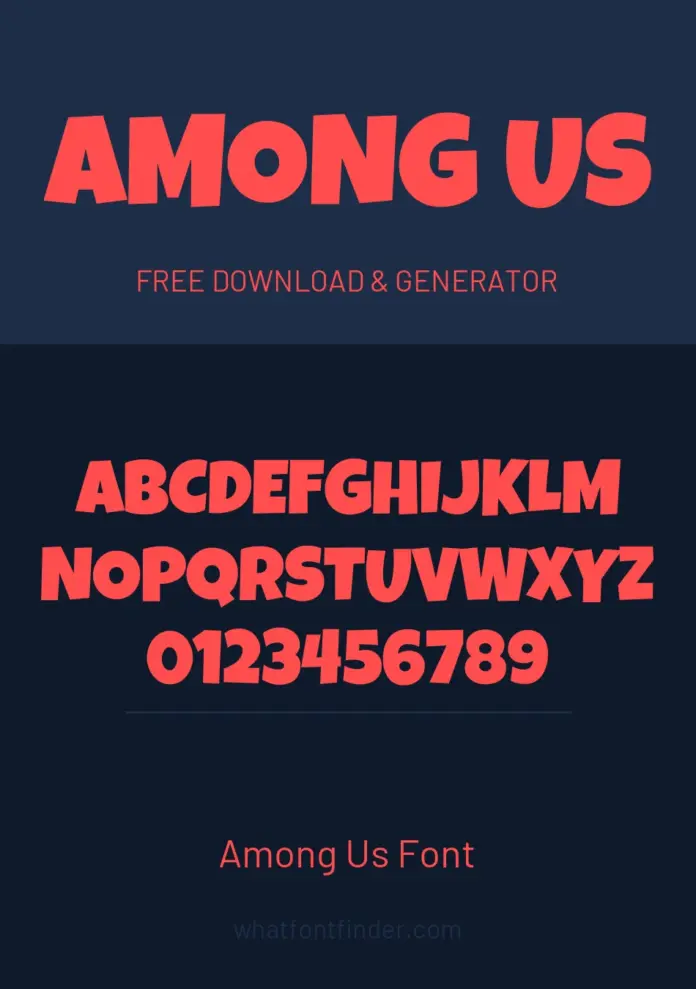
What font does Among Us use?
Two answers again, and this time one of them is unusually satisfying.
The logo is hand-lettered — the wobbly, uneven capitals with the drop shadow were drawn, not typed, which is why every letter is slightly different.
The in-game text is different: player names, the settings menu, the vote counter and the task list are set in ordinary open-source typefaces. Arimo and Barlow are the real thing, not approximations — the same fonts the game ships with, and both free.
For the logo look
- Luckiest Guy is a chunky comic capital with a similar bounce — the nearest free font to the hand-lettered title.
- VT323 is a terminal face, useful for the retro-computer feel of the task screens rather than the logo.
Why the in-game fonts are worth knowing
Most franchise font pages can only offer you an approximation, because the original was drawn rather than typed. This one is unusual: the text you read while actually playing — player names above the crewmates, the settings menu, the vote tally — is set in fonts that anyone can download. Arimo and Barlow are not lookalikes, they are the same typefaces.
That makes them the right pick for anything imitating the interface: a fake vote screen, a task list graphic, a mocked-up lobby. Reach for Luckiest Guy only when you are recreating the title itself.
Matching the hand-lettered title
The logo’s wobble is the point. Because every letter was drawn separately, no font reproduces it out of the box — but you can get most of the way by setting the word in Luckiest Guy and then rotating individual letters a degree or two in alternating directions, with slight vertical offsets. Add a hard offset shadow with no blur, which is what gives the original its sticker-like depth.
Frequently asked questions about the Among Us Font
Is this the exact font used for Among Us?
Yes, VT323 is the typeface used in the original Among Us artwork.